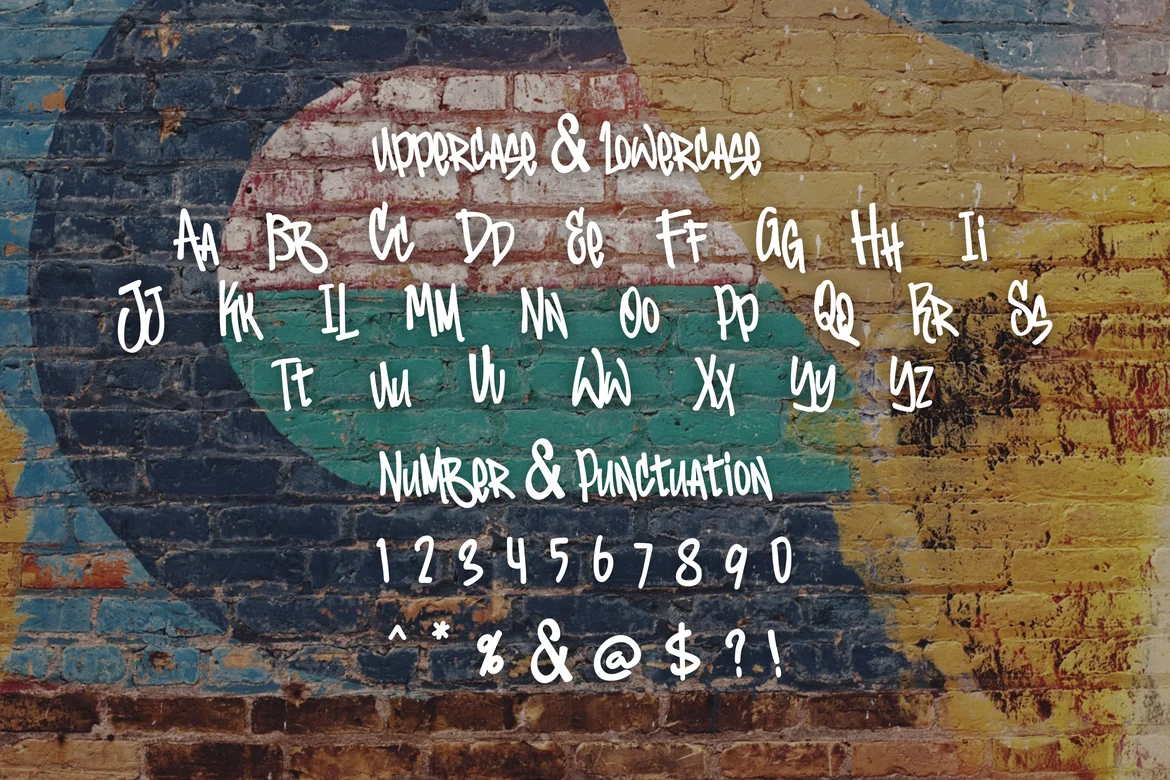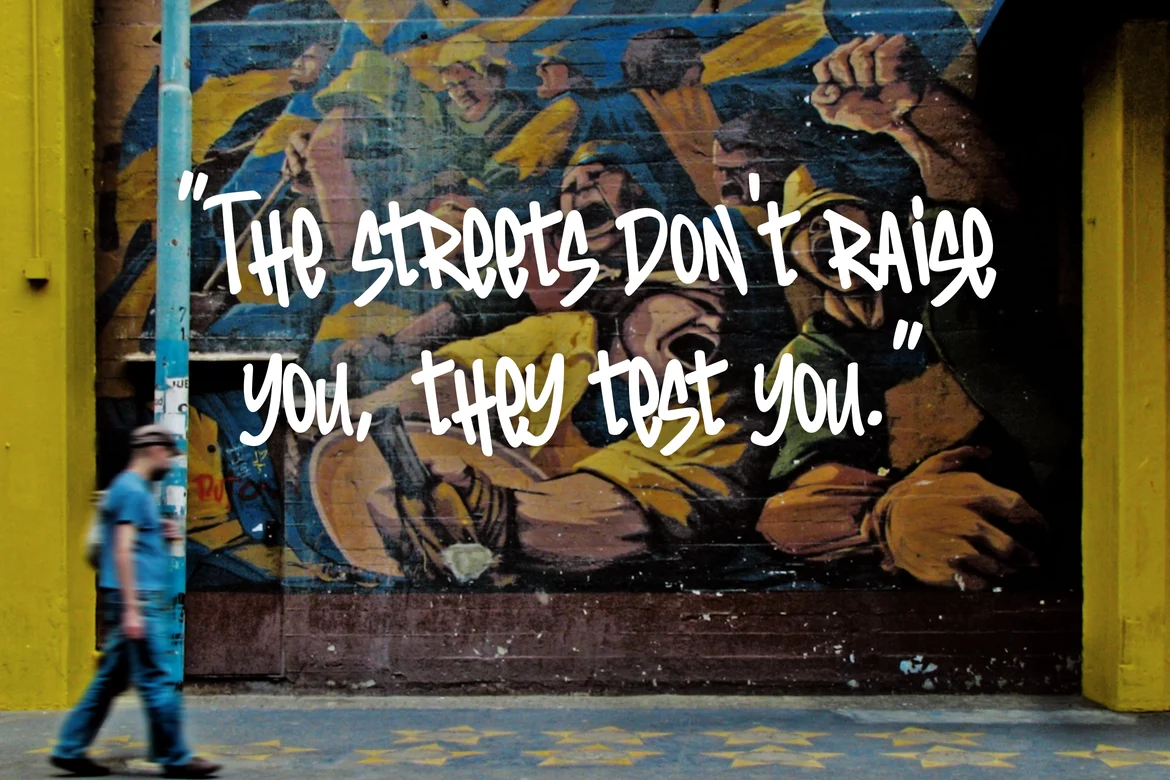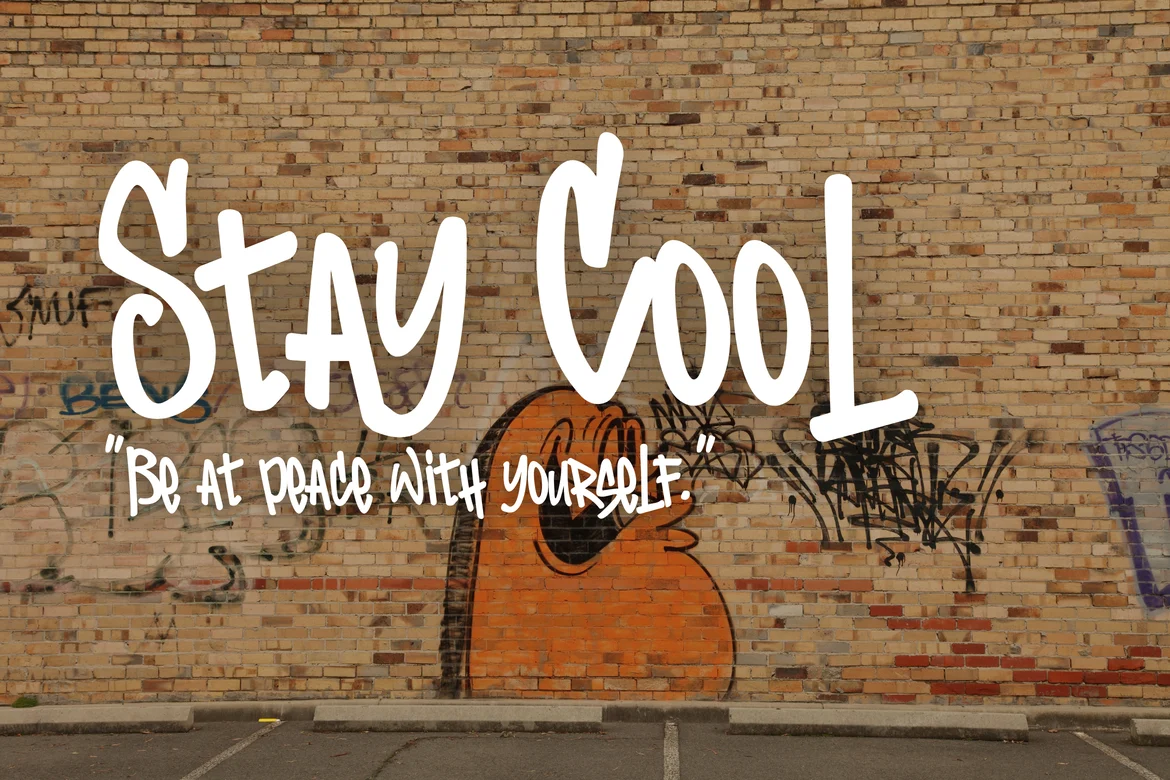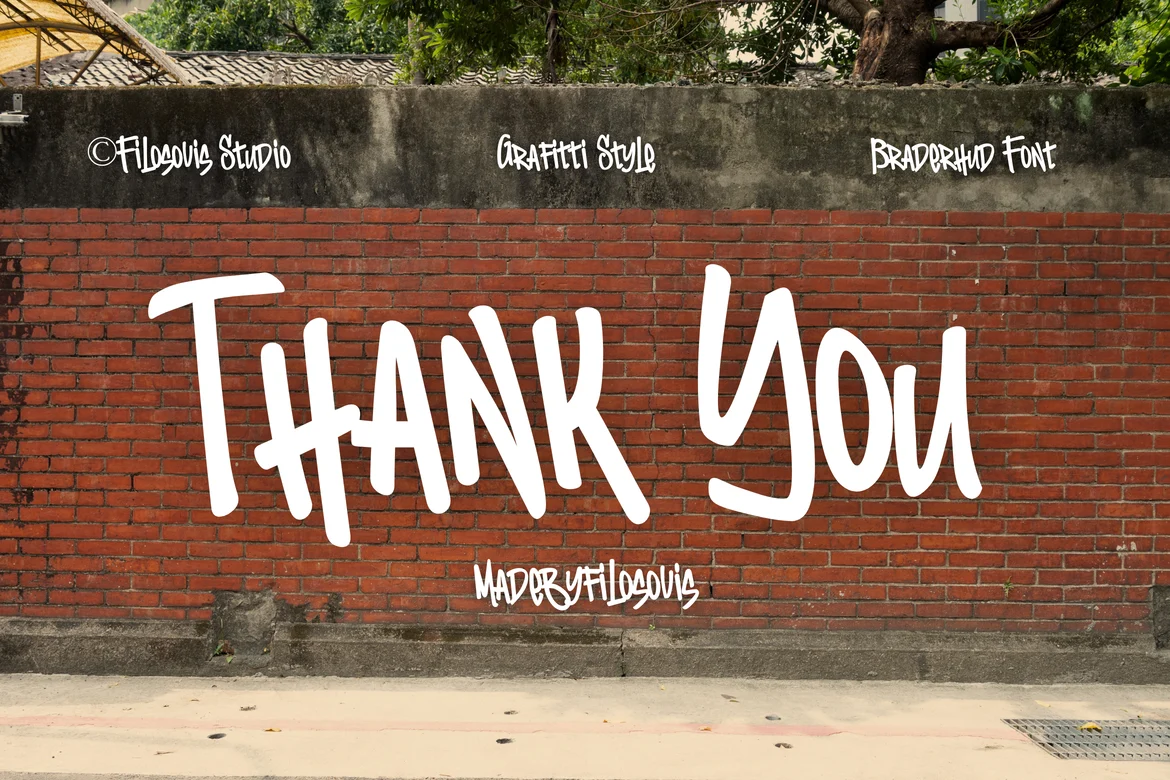
Braderhud | Grafiti Style Font
For your creative project, use the Braderhud-themed Grafiti Style. Grafiti style is appropriate for every kind of design you produce, including greeting cards, posters, logos, and branding.
Uppercase Characters
Lowercase Characters
Numeric & Symbol